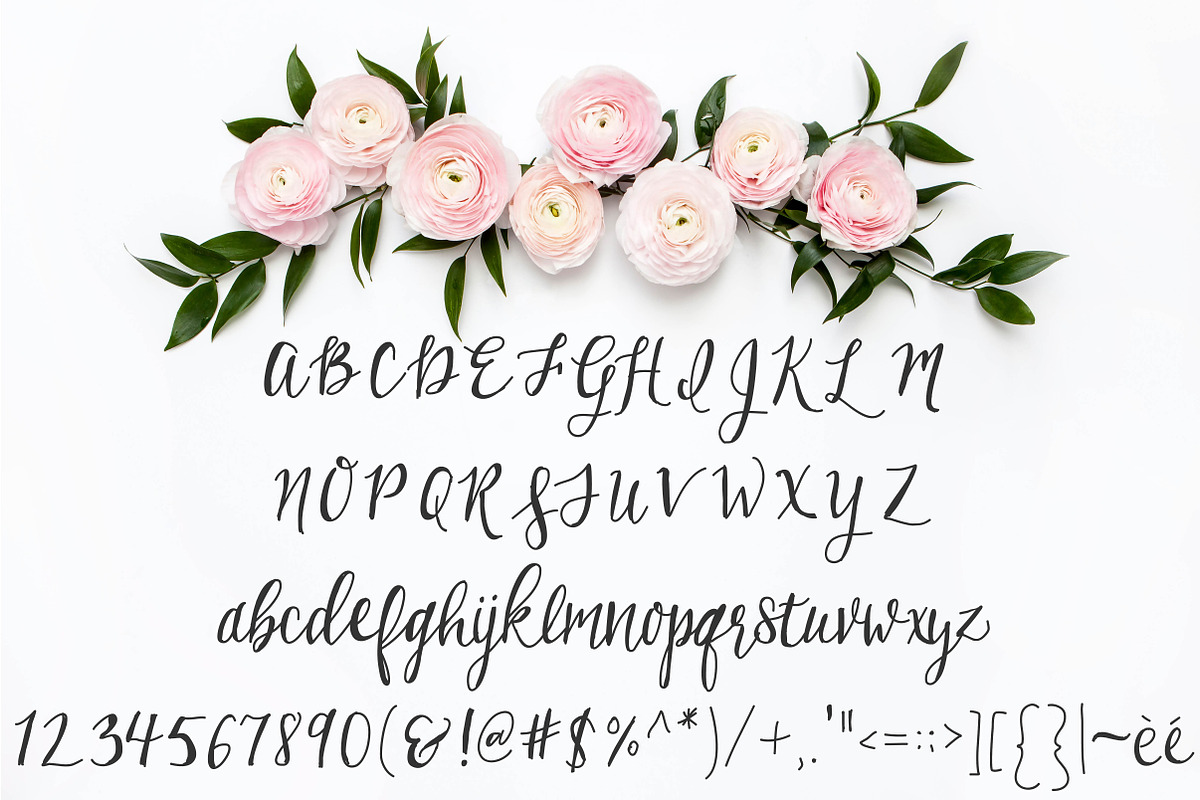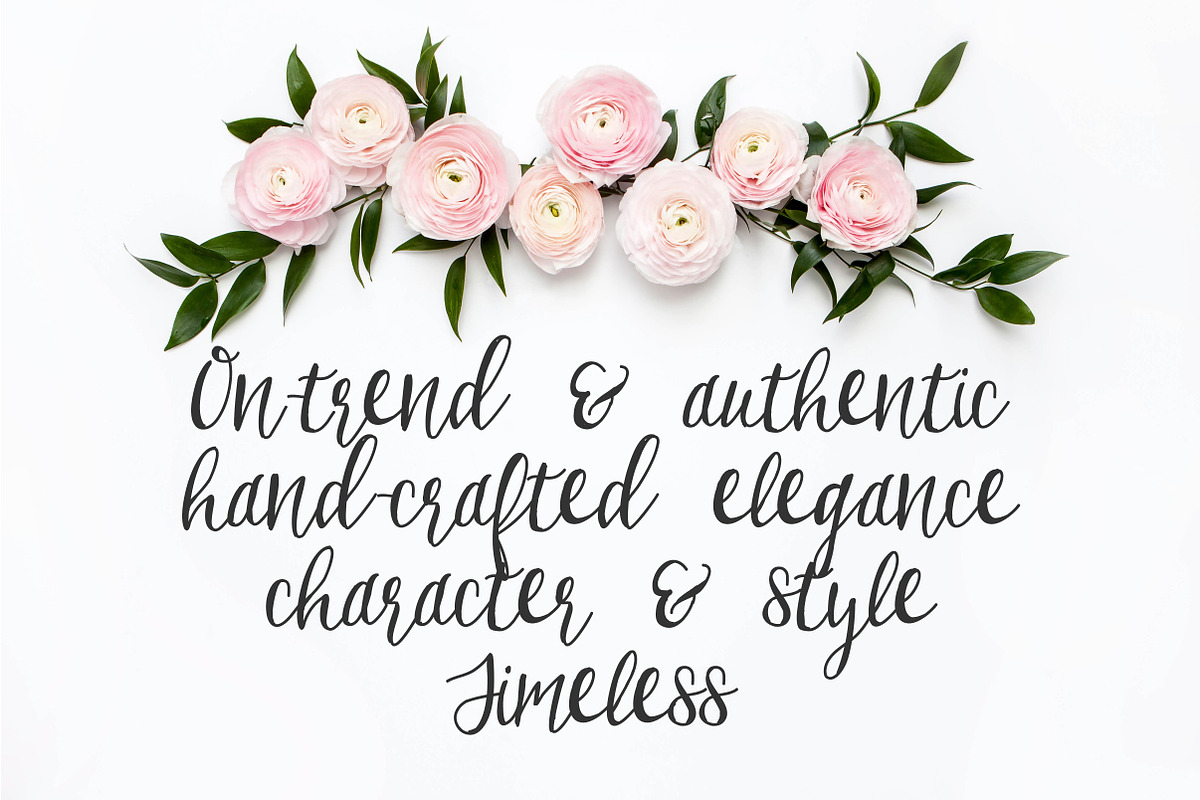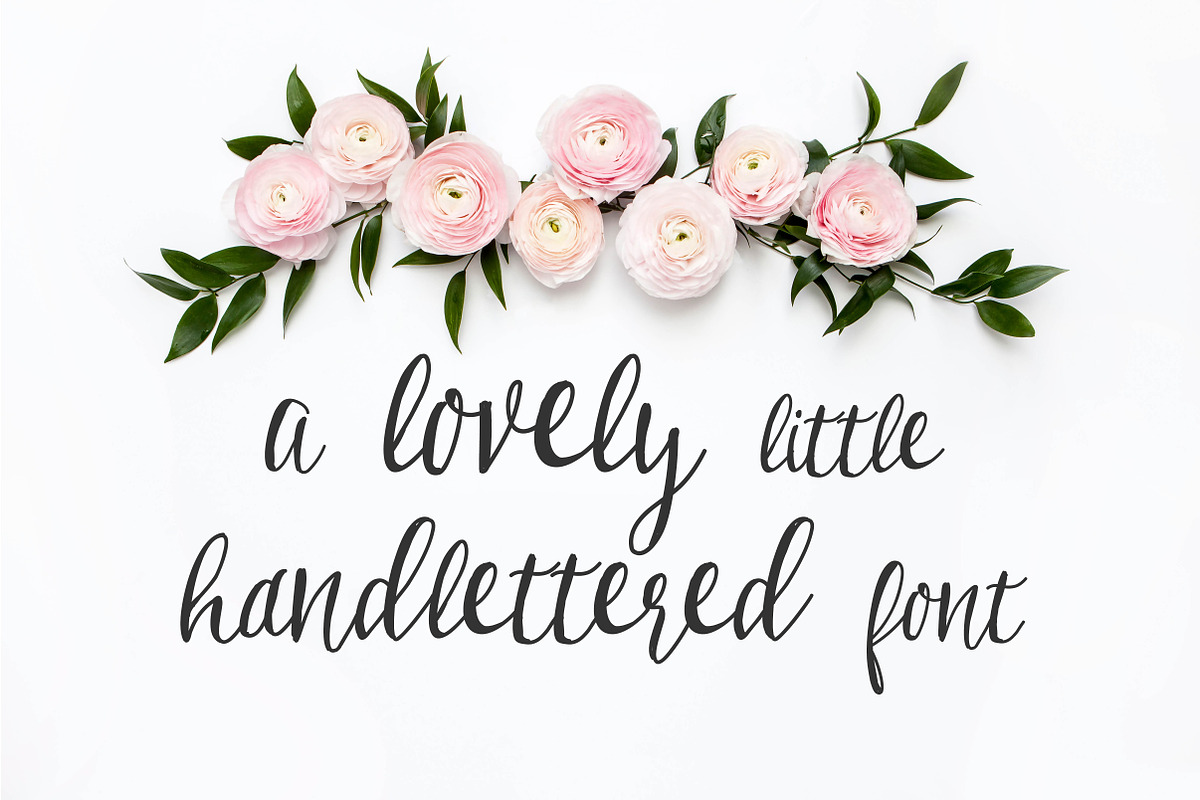
Birchwood Calligraphy Font
Birchwood Calligraphy Font by Printable Wisdom is a font selected for branding, posters, packaging, typography.
- Perfect for wedding invitations, adding design accents, and giving your projects a coveted hand-crafted look.
- No alternates or foreign alphabets (other than ones shown) supported at this time.
Why Birchwood Calligraphy Font is worth a look
Birchwood Calligraphy Font by Printable Wisdom fits naturally into Branding, posters, packaging, typography.